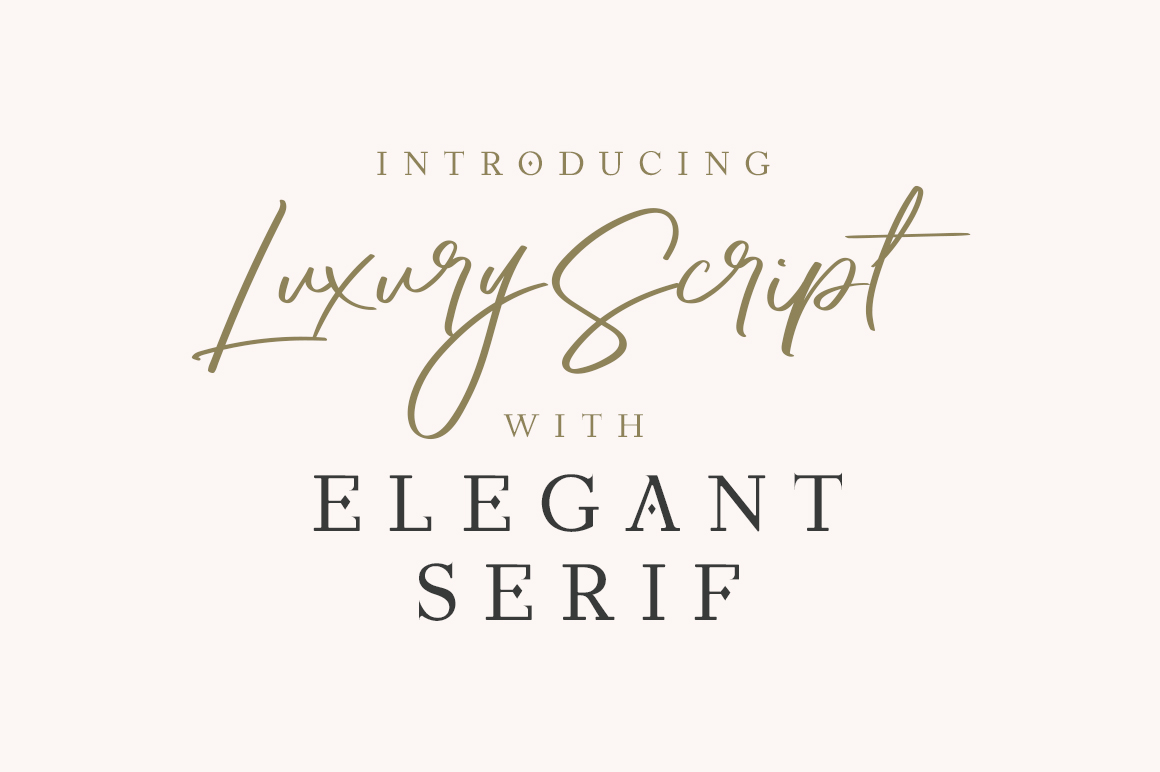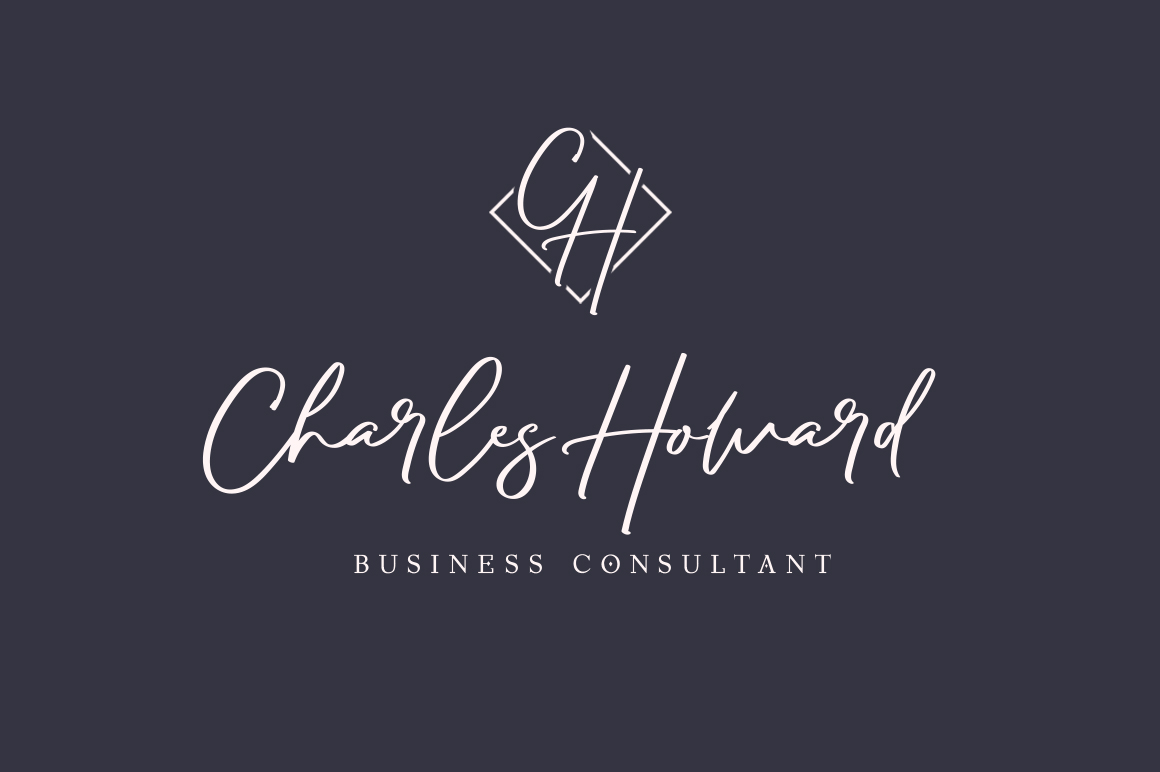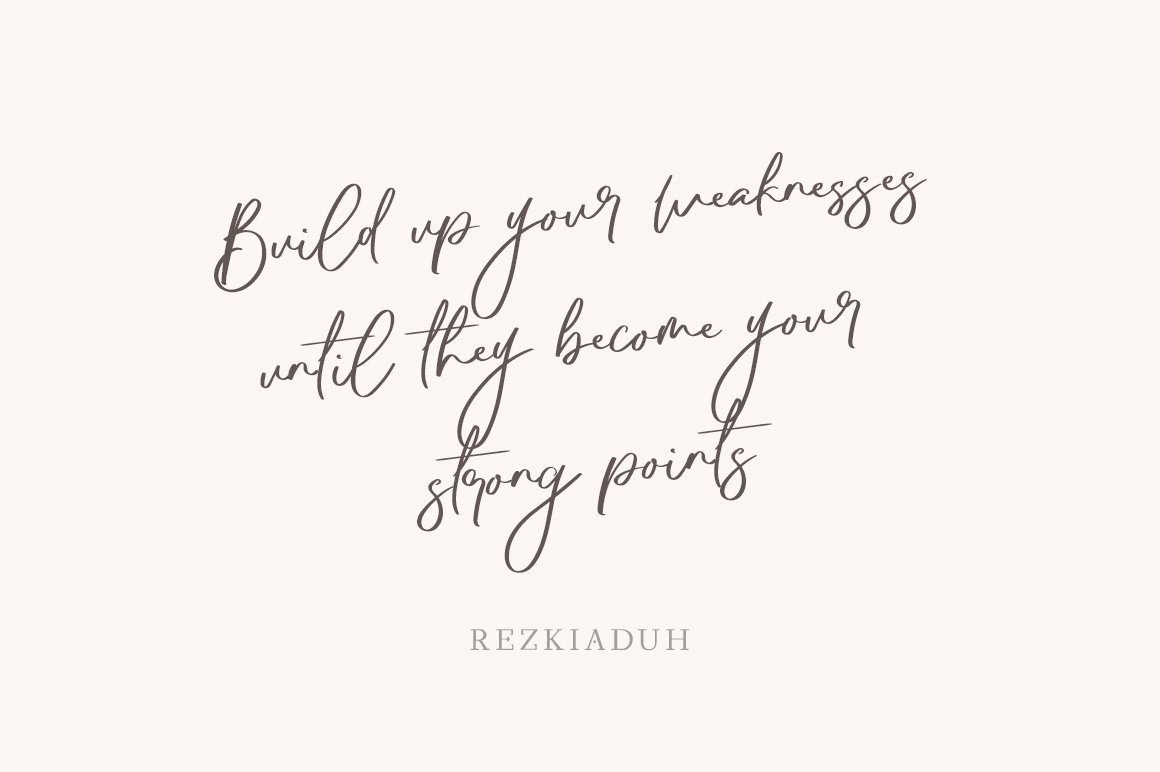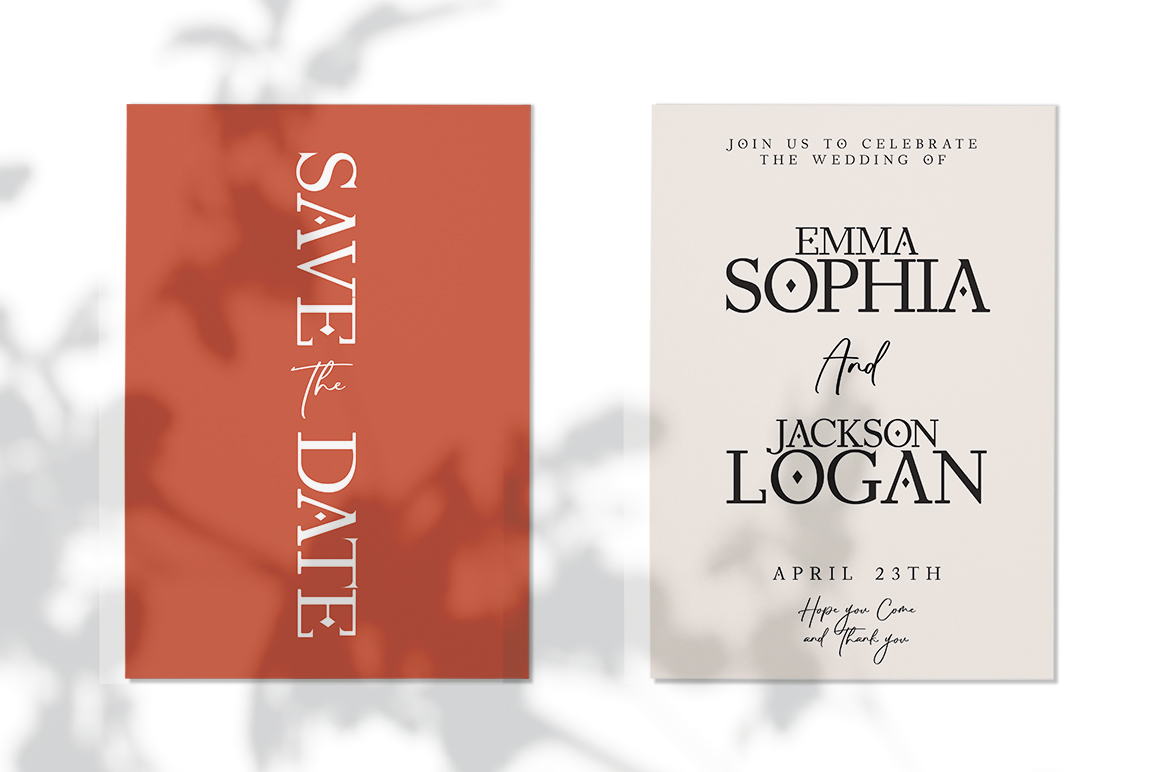
Black Pearl Free Font
Black Pearl Free Font makes your project look more deluxe and good looking, very suitable for your project that needs lux feel, because this font got that taste, with beautiful ligature and detail in every letter. This free typeface was designed by a talented Embun Studio. If you like it don’t forget to check out the full version.